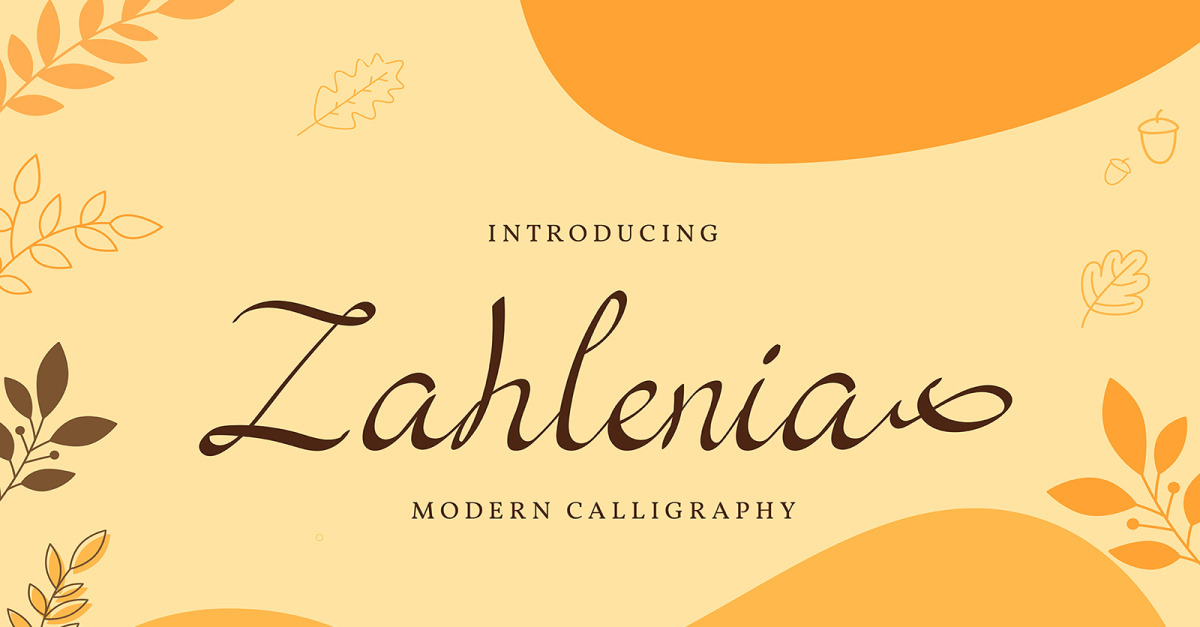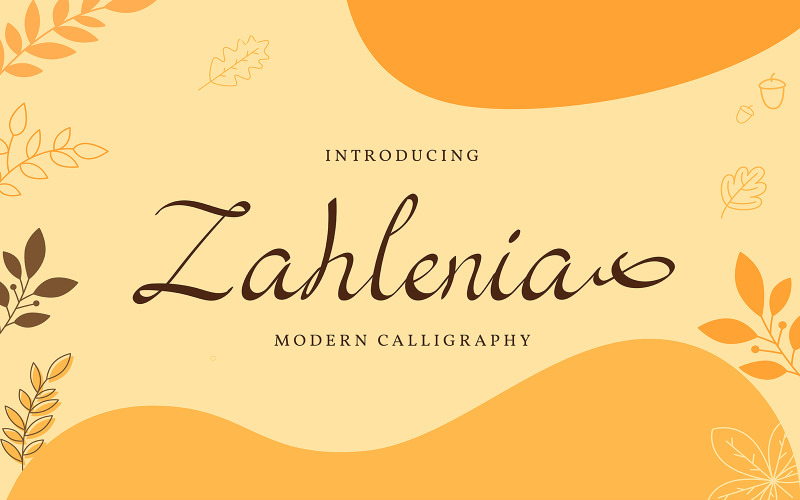
Zahlenia | Modern Calligraphy Font
**Zahlenia | Modern Calligraphy Font** with a calligraphy style, So beautiful on invitation like greeting cards, branding materials, business cards, quotes, posters, and more!